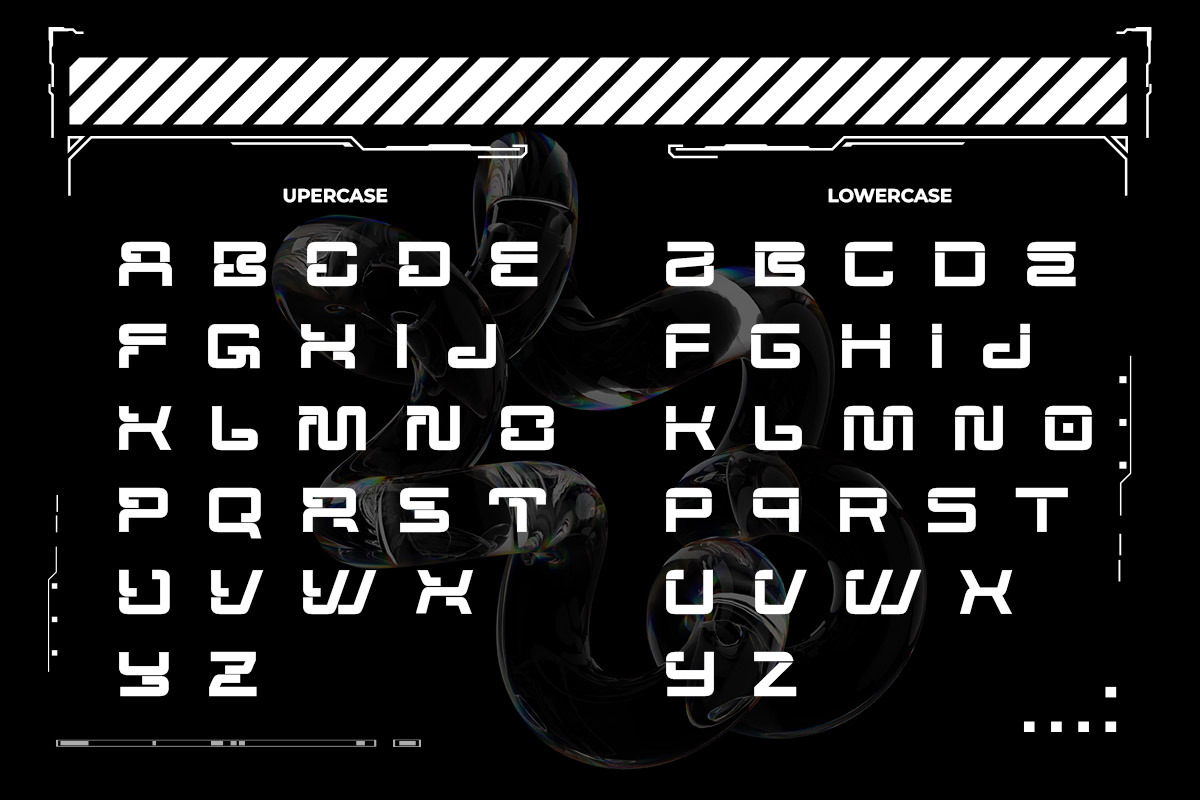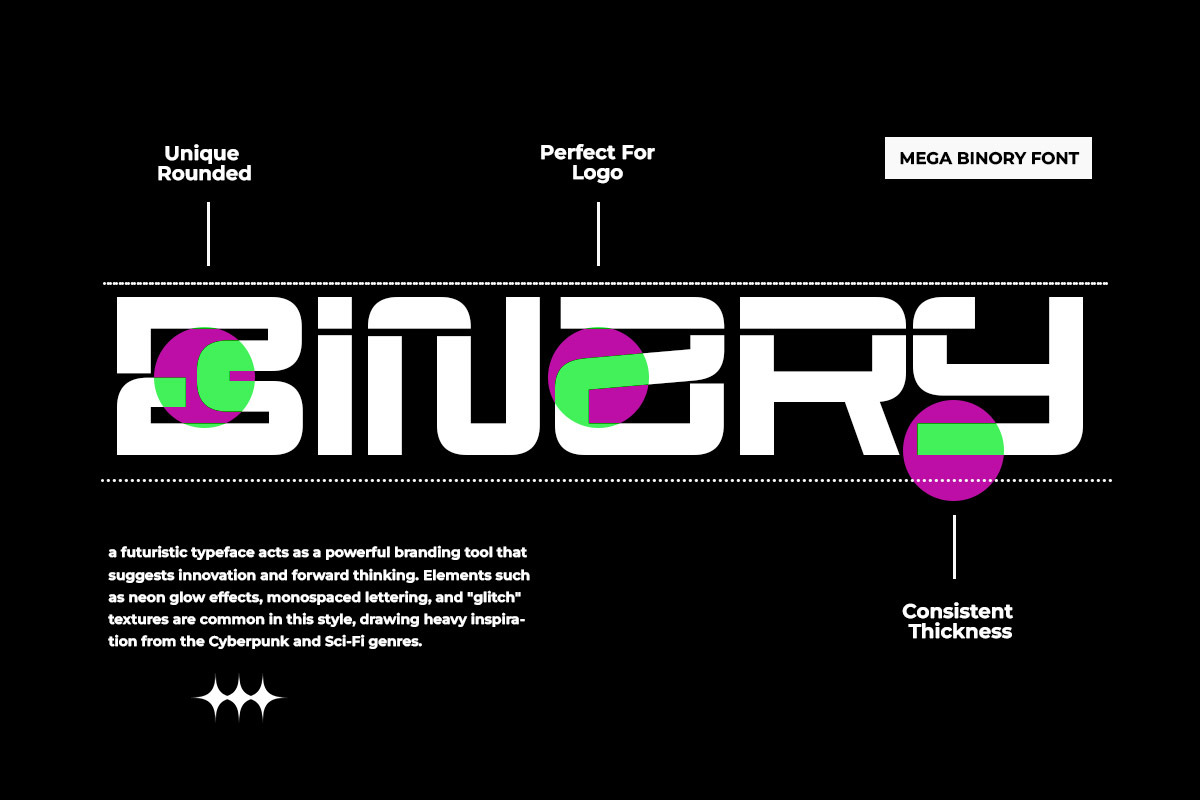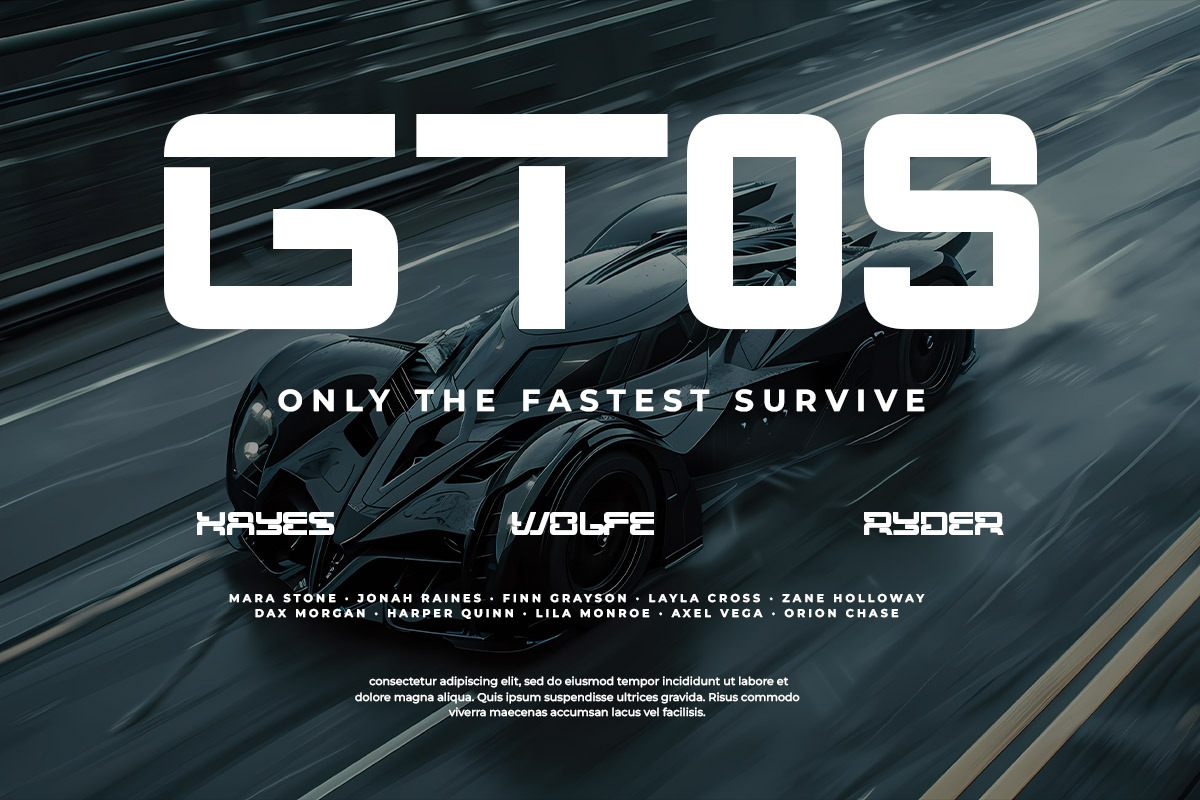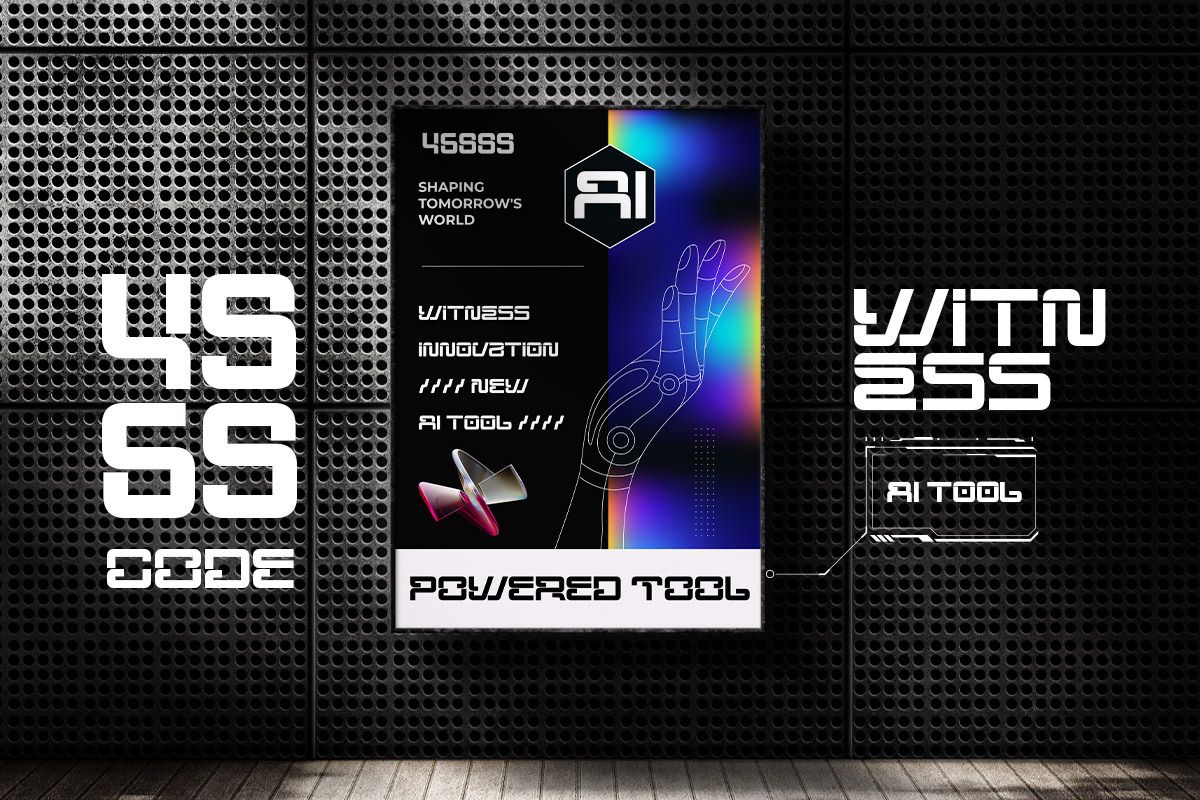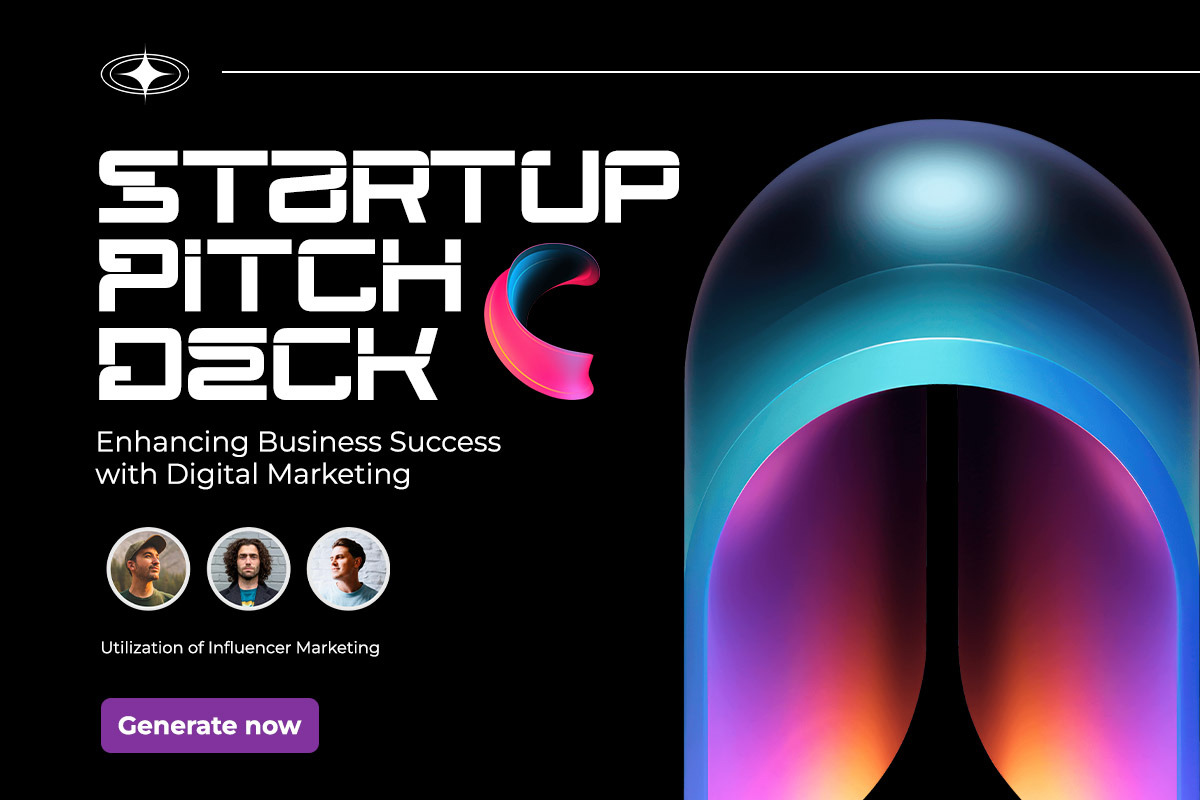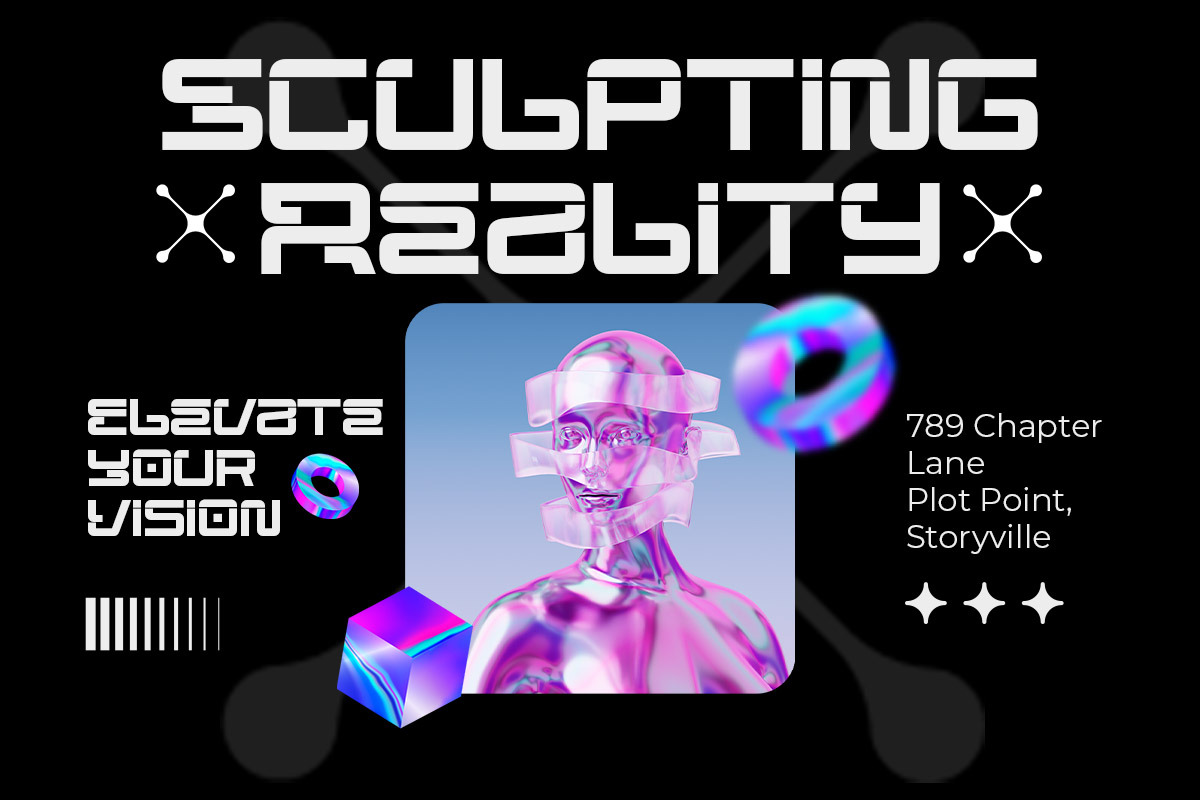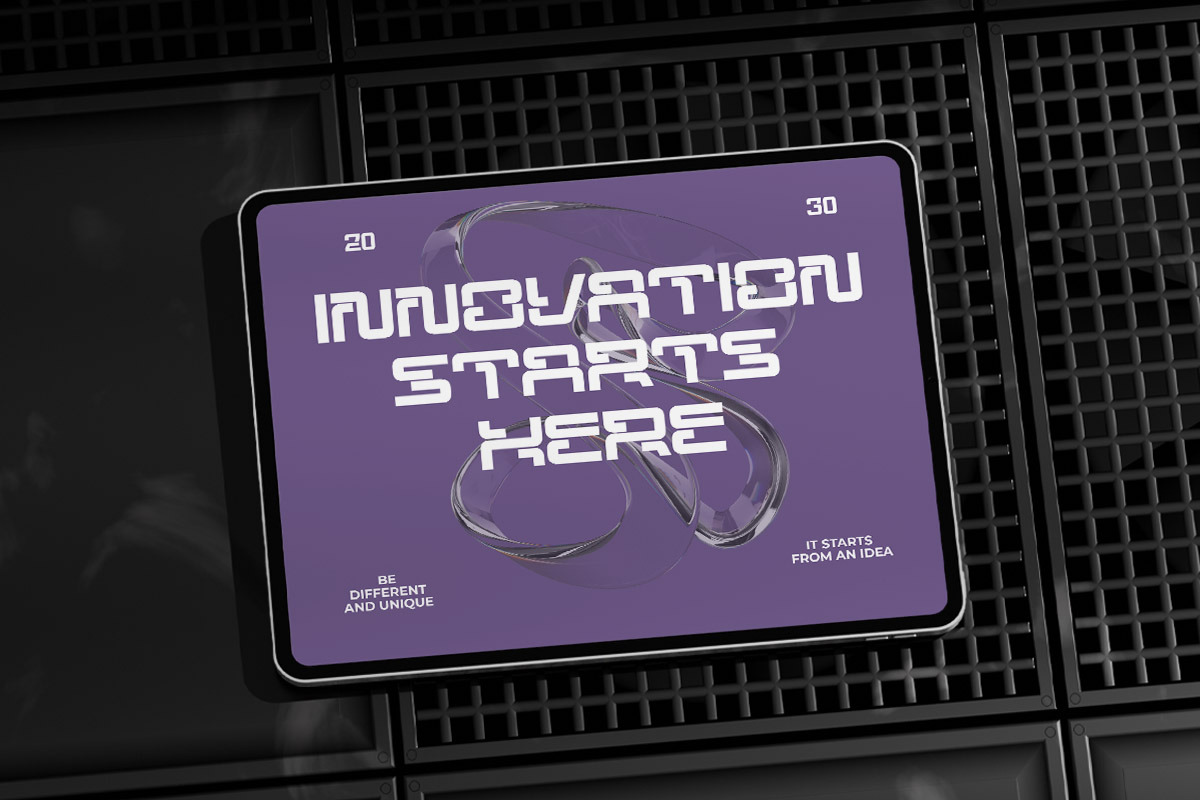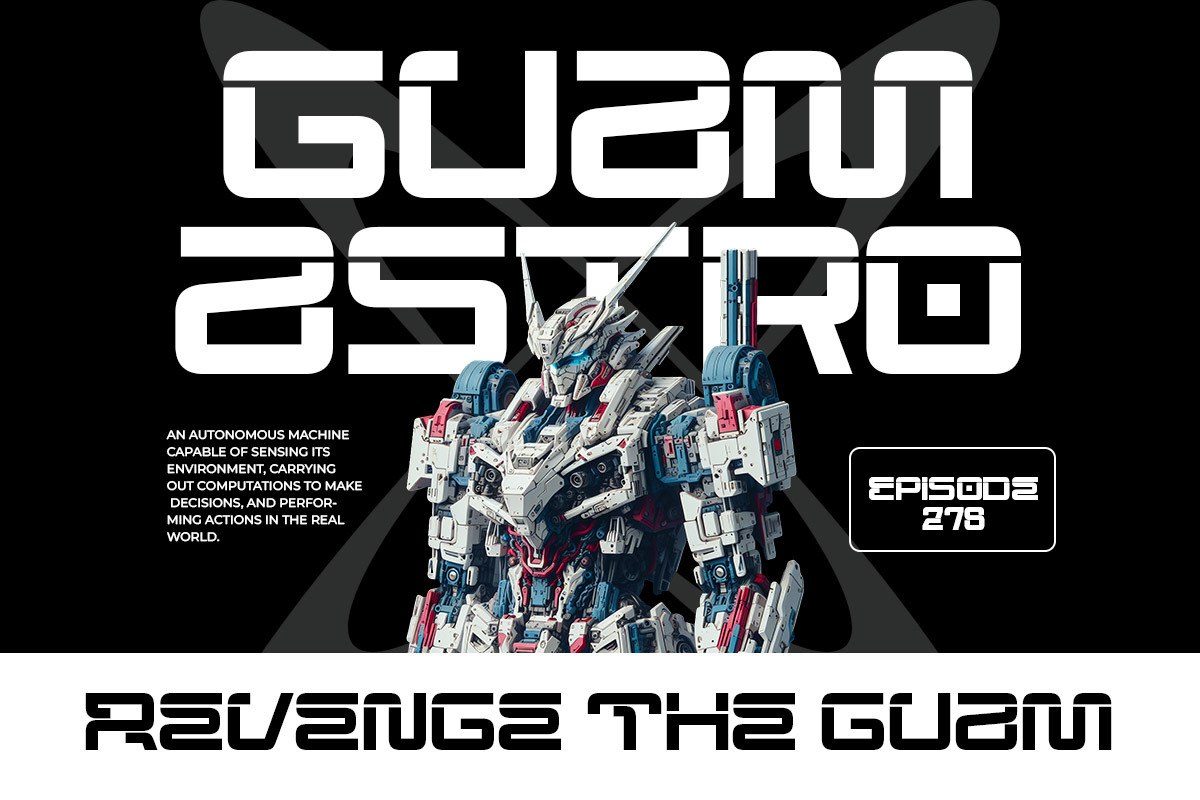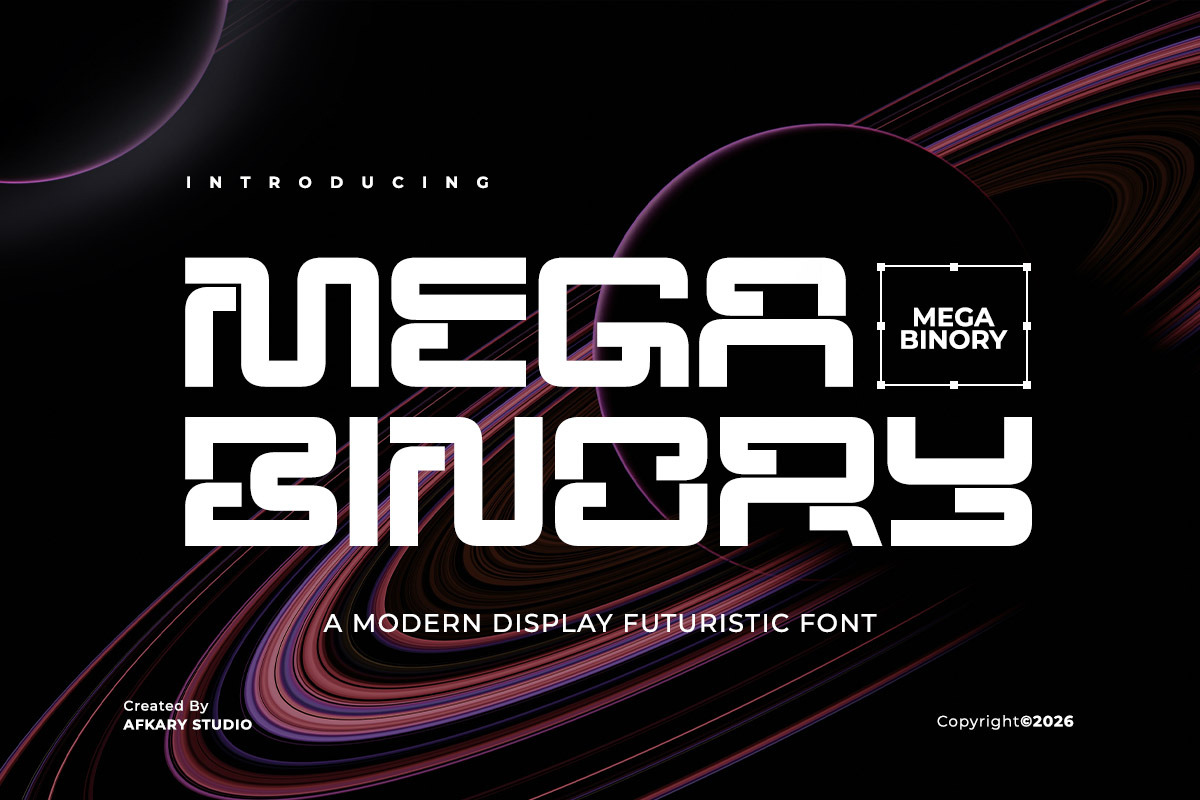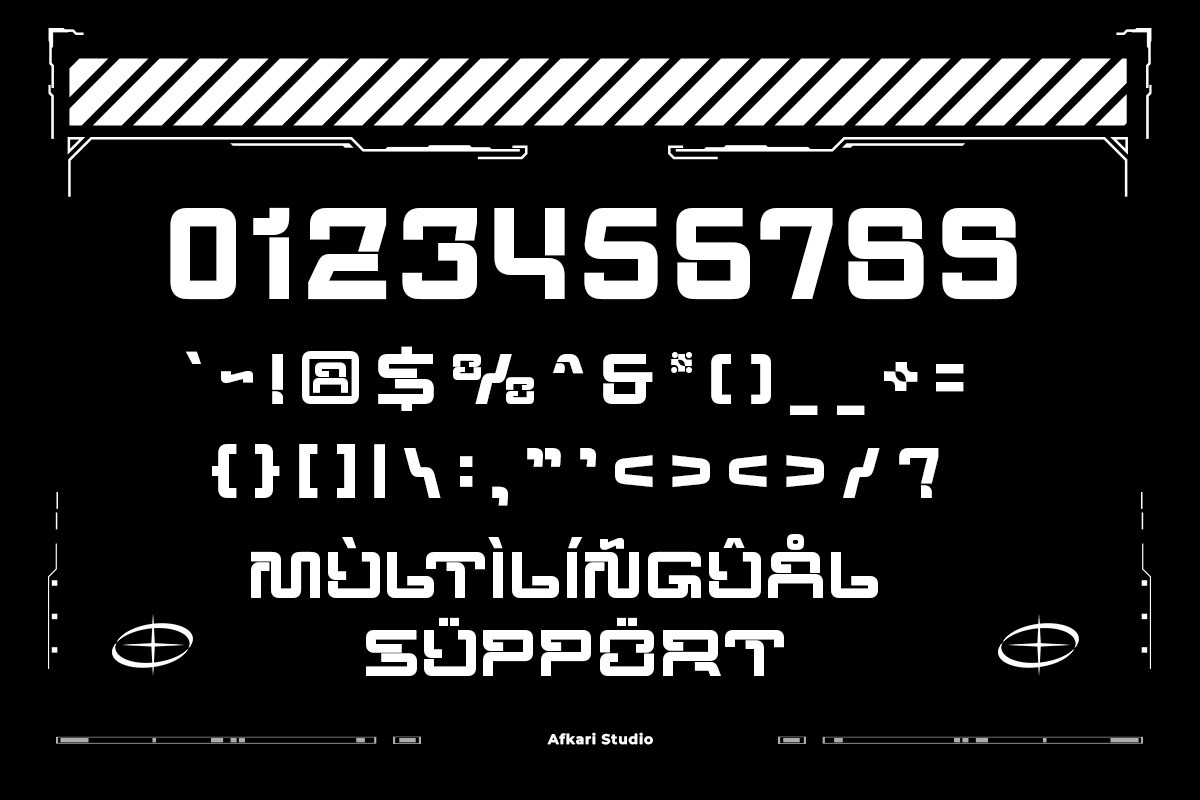
Mega Binory - Modern Futuristic Font
Mega Binory is a cutting-edge modern futuristic sci-fi font designed to bring a bold, high-tech aesthetic to your creative projects. Inspired by digital interfaces, cyberpunk visuals, and advanced technology, this font delivers a sleek, geometric structure with sharp edges and dynamic letterforms that instantly capture attention.
Crafted for designers who want to create a strong futuristic identity, Mega Binory blends minimalism with a powerful sci-fi vibe. Its clean lines and modern proportions make it highly versatile, whether you're working on digital branding, gaming visuals, or tech-inspired layouts.
This futuristic font is perfect for projects that demand innovation and forward-thinking style. Use it for logos, esports branding, movie titles, posters, UI/UX design, YouTube thumbnails, album covers, and technology-themed graphics. Mega Binory ensures your design stands out with a professional and futuristic edge.
Whether you're designing for a startup, a sci-fi project, or a modern brand, Mega Binory gives you the visual power to communicate innovation, speed, and digital precision.
Highlighted Features:
- Complete set of uppercase and lowercase letters, numerals, and punctuation marks
- Multilingual support including characters such as ä, ö, ü, Ä, Ö, Ü, ß, ¿, and ¡
Create powerful, futuristic designs with Mega Binory and bring your ideas into the next generation of visual storytelling.